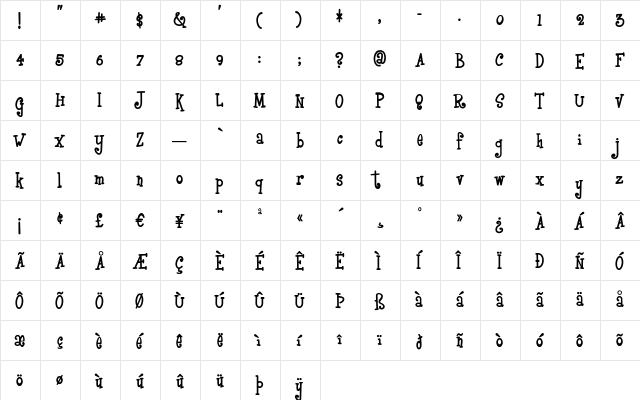
BoyzRGross Regular
Design Context for BoyzRGross Typeface
BoyzRGross is a composed and adaptable typeface that performs quietly and consistently across a wide range of design contexts.